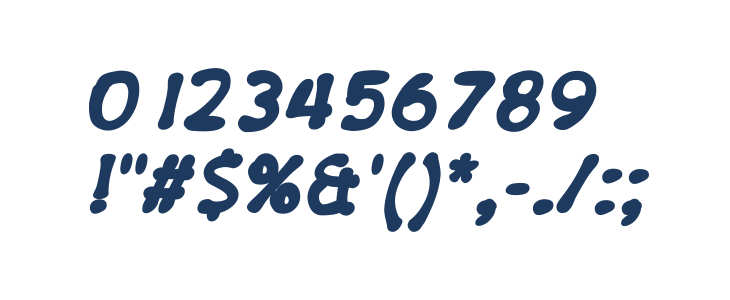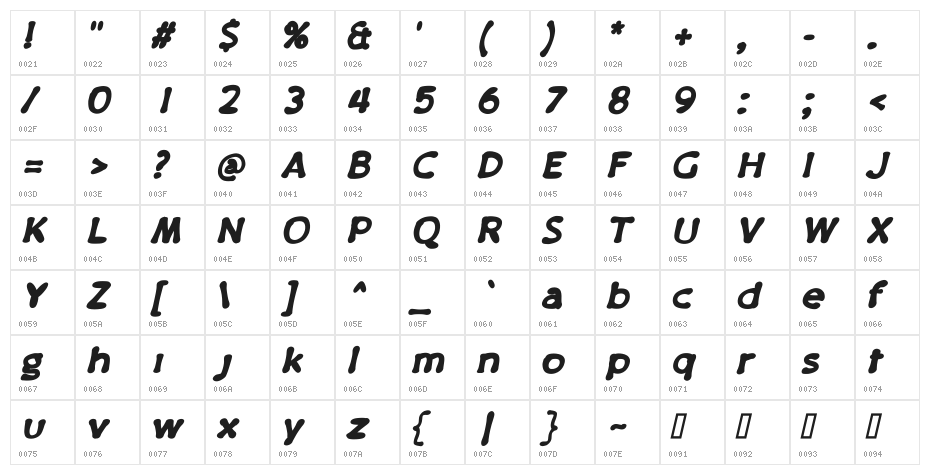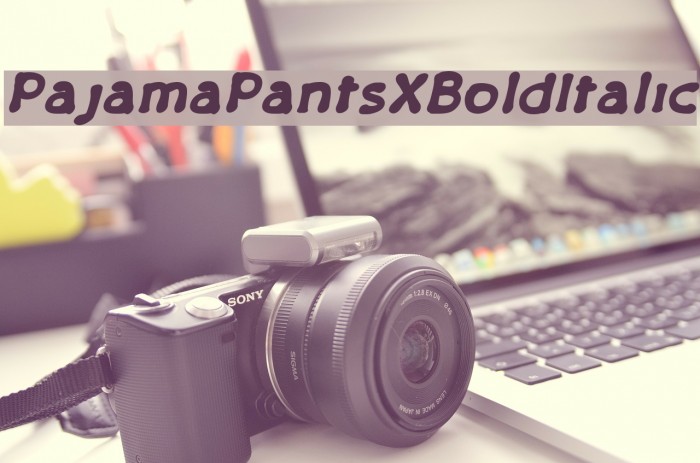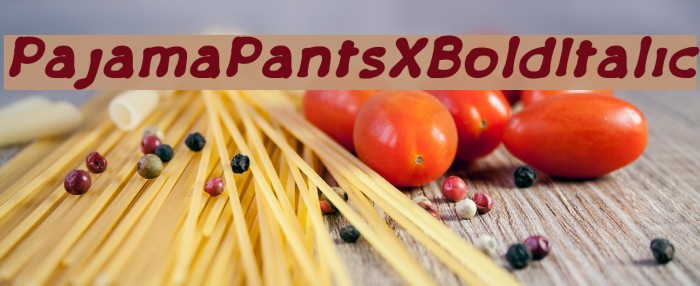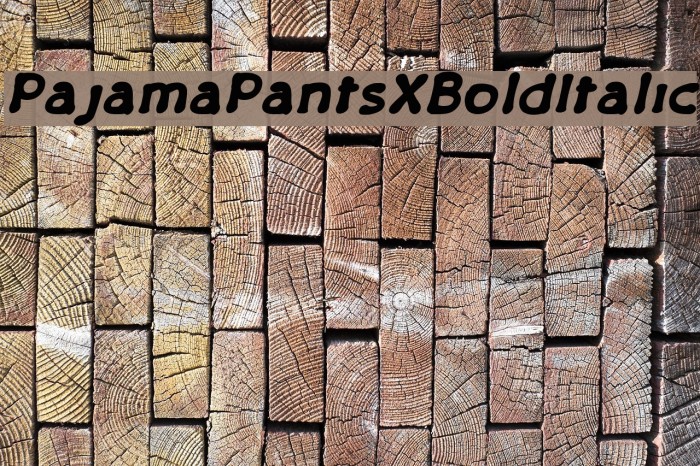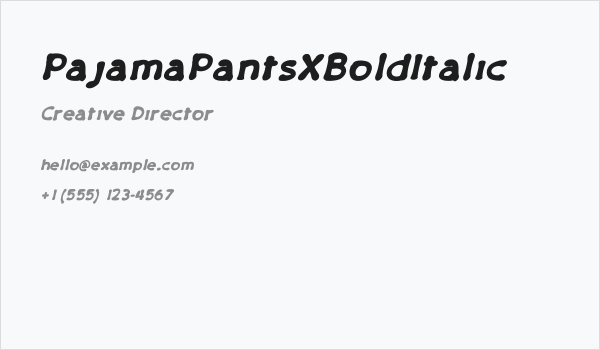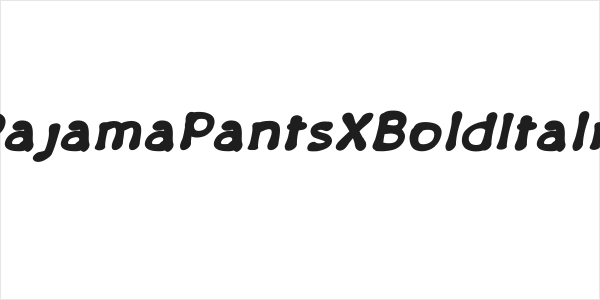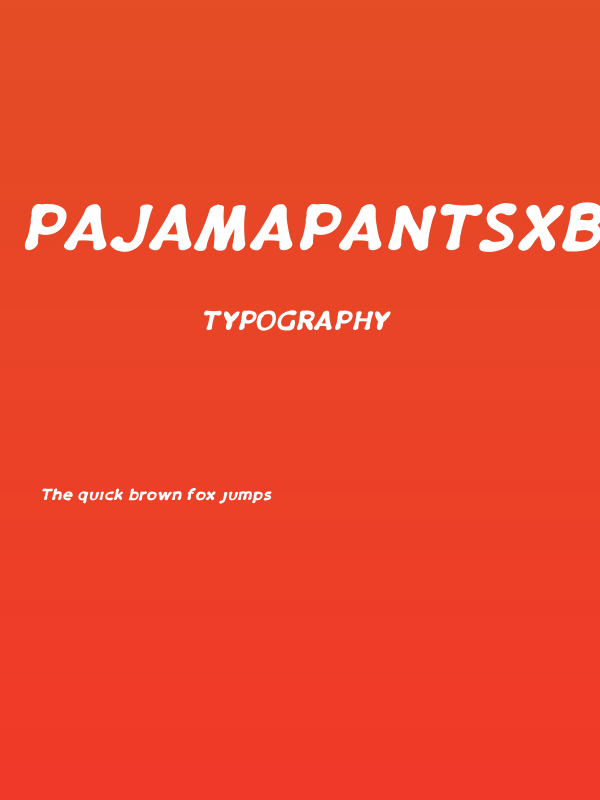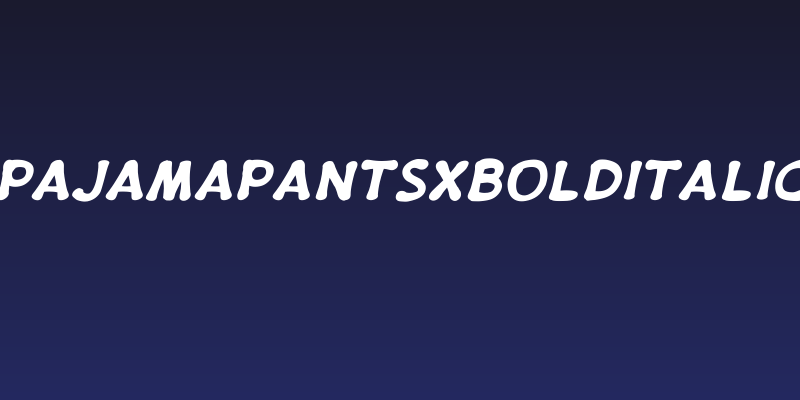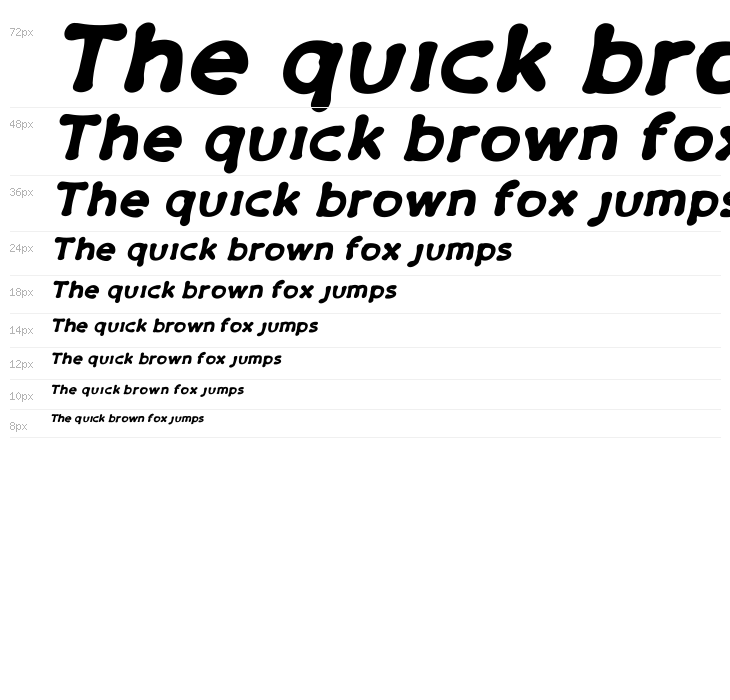
PajamaPantsXBoldItalic Font
PajamaPantsXBoldItalic Description
This font exhibits a playful and bold style, characterized by its thick, rounded strokes and a slight slant that gives it an italicized appearance. The letters are closely spaced, enhancing its compact and energetic look. The uppercase and lowercase letters maintain a consistent weight, contributing to its cohesive design. The numbers and special characters are equally bold, ensuring uniformity across all glyphs. This font's rounded edges and smooth curves add a friendly and approachable feel, making it ideal for projects that require a touch of whimsy and boldness.
| Overall Style | Playful, Energetic |
| Proposed Projects | Ideal for children's book covers, playful branding, casual invitations, and eye-catching headlines. |